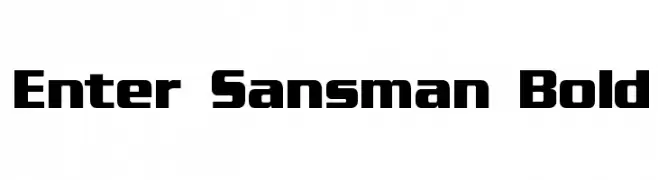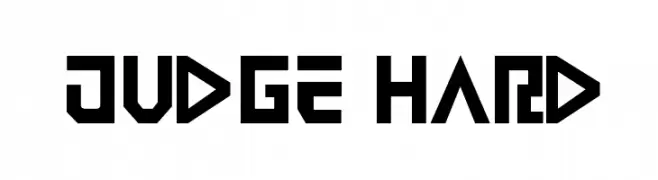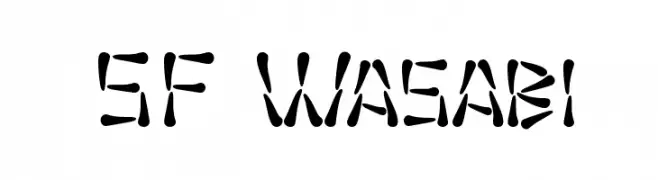
A bold, geometric typeface with clean lines and a modern aesthetic.
A bold, geometric font with clean lines and a modern aesthetic.
A classic italic serif font with elegant, flowing characters.
A classic serif font with elegant lines and moderate contrast, ideal for formal use.
A classic cursive font with elegant, flowing lines and sophisticated style.
A classic serif typeface with an extra condensed width and medium contrast.
A modern, geometric font with consistent stroke width and a clean design.
A bold, high-contrast serif font with dramatic strokes and sharp serifs.
A bold, geometric font with Art Deco influences and strong, angular lines.
A bold, geometric typeface with strong, blocky characters.
A bold, modern sans-serif font with clean lines and strong presence.
A vintage, typewriter-style font with monospaced, textured characters.
A playful handwritten font with thin, delicate strokes and a whimsical style.
A decorative font with uppercase letters designed to resemble pencils.
An elegant script font with intricate swashes and flowing lines.
An elegant and sophisticated script font with intricate swashes.
A bold, geometric font with a modern and assertive style.
A playful, handwritten font with smooth curves and a whimsical style.
A graceful script font with elegant swirls and loops, perfect for sophisticated designs.
A bold, high-contrast serif typeface with dramatic, wide letterforms.
A sleek, modern font with thin, elongated letterforms and a minimalist design.
A playful, handwritten font with thin, flowing strokes and a whimsical style.
A playful, handwritten font with tall, narrow letters and a casual, informal style.
A playful, handwritten font with a whimsical and friendly style.
A bold, artistic font with dramatic strokes and intricate details.
A playful, handwritten font with a whimsical and casual style.
A bold, classic serif font with strong, well-defined characters.
A classic serif font with elegant, refined strokes and a light weight.
A bold, angular font with a modern geometric style.